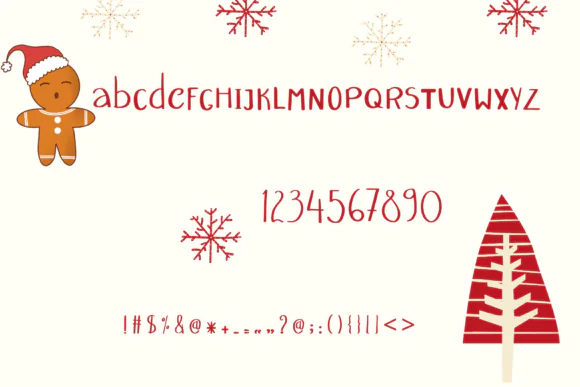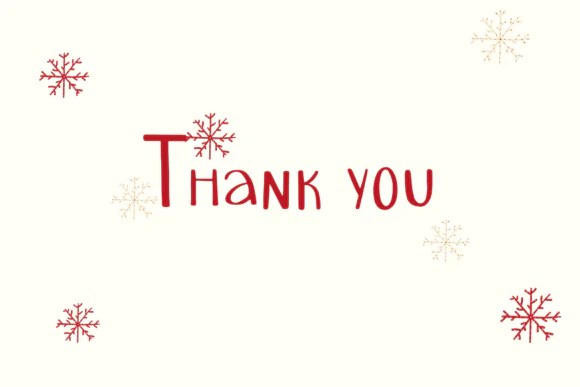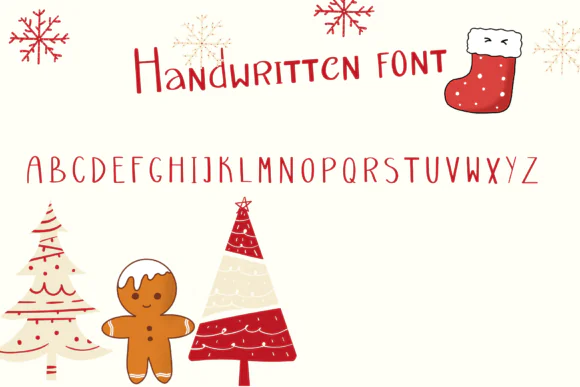
Christmas Handwritten Font | Fun Casual Holiday Typeface for T-Shirts, Baby Onesies, Nursery Decorations, Cards, Digital Designs & Festive Creative Projects
Create cute, cheerful, and festive designs with Christmas Font, a fun casual handwritten typeface made for holiday-themed creative projects. With its friendly handwritten style and playful personality, this font is perfect for adding a warm, personal, and joyful touch to Christmas designs.
Christmas Font is ideal for designers, crafters, print-on-demand sellers, stationery creators, small business owners, baby product designers, and digital product makers who want a simple and charming holiday font for both print and digital projects. It works beautifully for t-shirt designs, baby onesies, nursery decorations, greeting cards, invitations, stickers, gift tags, wall art, social media posts, mugs, tote bags, digital designs, and printable crafts.
Its casual handwritten look makes it especially suitable for cozy family Christmas designs, cute baby apparel, nursery wall prints, handmade-style greeting cards, festive quote graphics, and personalized holiday gifts. Whether you are creating a Christmas onesie, a merry t-shirt design, a nursery decoration, or a festive digital card, this font adds a sweet and approachable holiday feel.
• Christmas t-shirt designs
• Baby onesies
• Nursery decorations
• Greeting cards
• Holiday invitations
• Gift tags
• Stickers and labels
• Digital designs
• Wall art prints
• Mug designs
• Tote bags
• Printable crafts
• Personalized holiday gifts
• Family Christmas designs
Key Style Features
• Fun handwritten font style
• Casual and friendly appearance
• Perfect for Christmas and holiday designs
• Great for baby onesies and nursery decor
• Suitable for t-shirts, cards, and digital designs
• Warm handmade-style personality
• Easy to use for festive typography
• Ideal for print and digital creative projects